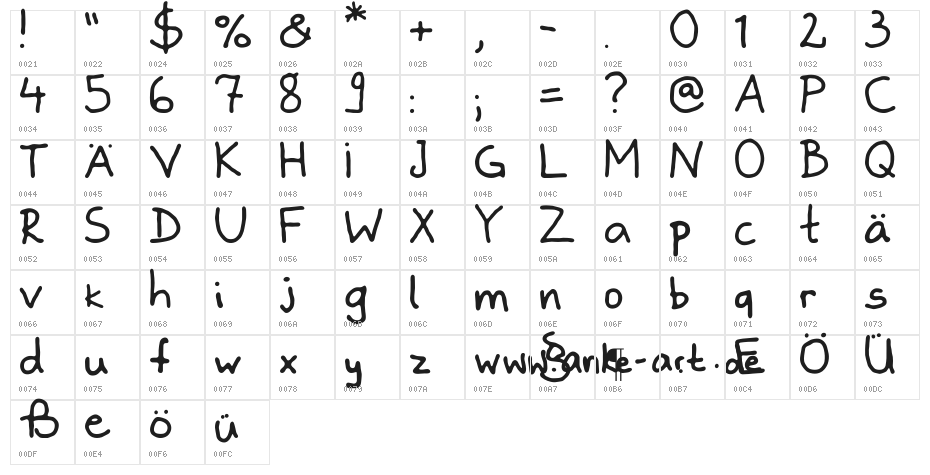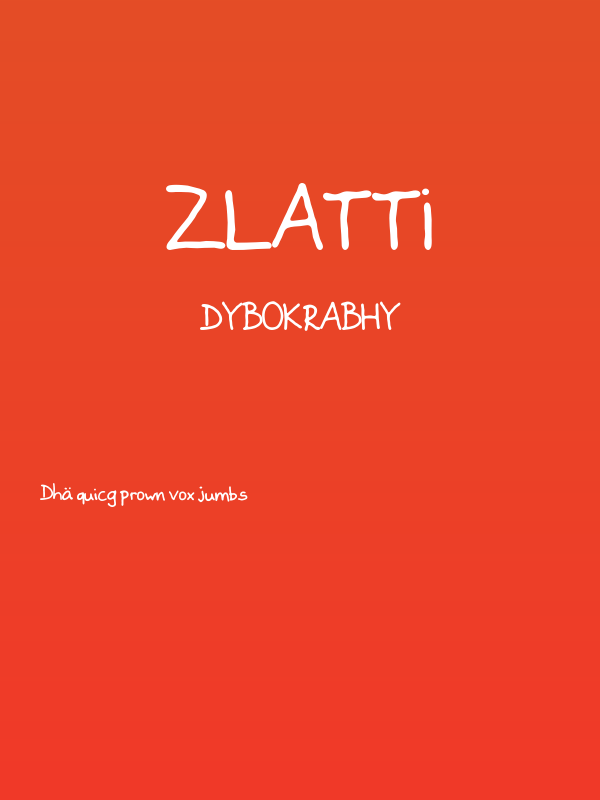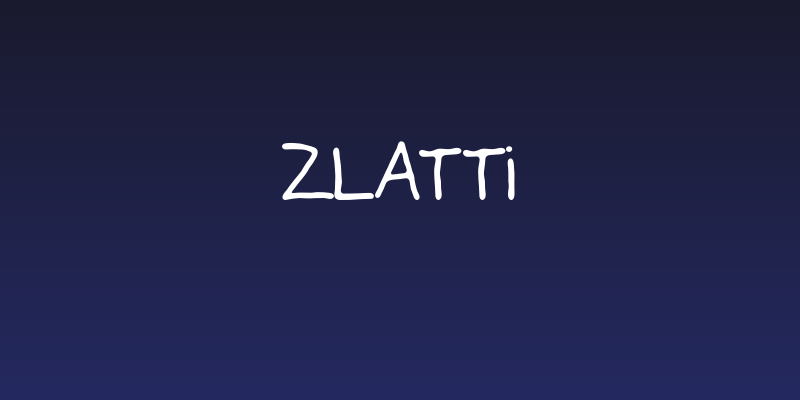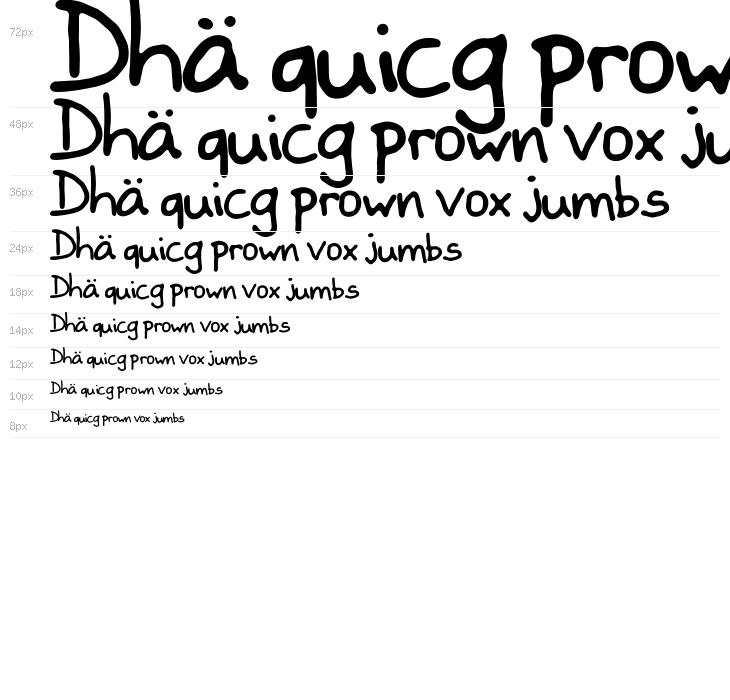
zladdi Font
zladdi Description
This font exudes a playful and informal style, characterized by its hand-drawn appearance. The letters are unevenly shaped, giving it a whimsical and casual feel. The uppercase and lowercase letters maintain a consistent style, with rounded edges and a slightly irregular baseline, enhancing its handwritten charm. The numerals and special characters follow the same playful design, making it suitable for creative and informal projects. The font's overall appearance is approachable and friendly, making it ideal for designs that aim to convey a sense of fun and creativity.
| Proposed Projects | Ideal for children's books, greeting cards, casual invitations, and playful branding. |